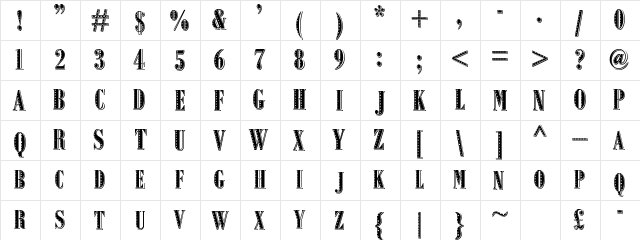
Squeal Piggy Regular
Design Context for Squeal Piggy Typeface
Squeal Piggy is a composed and adaptable typeface that performs quietly and consistently across a wide range of design contexts.